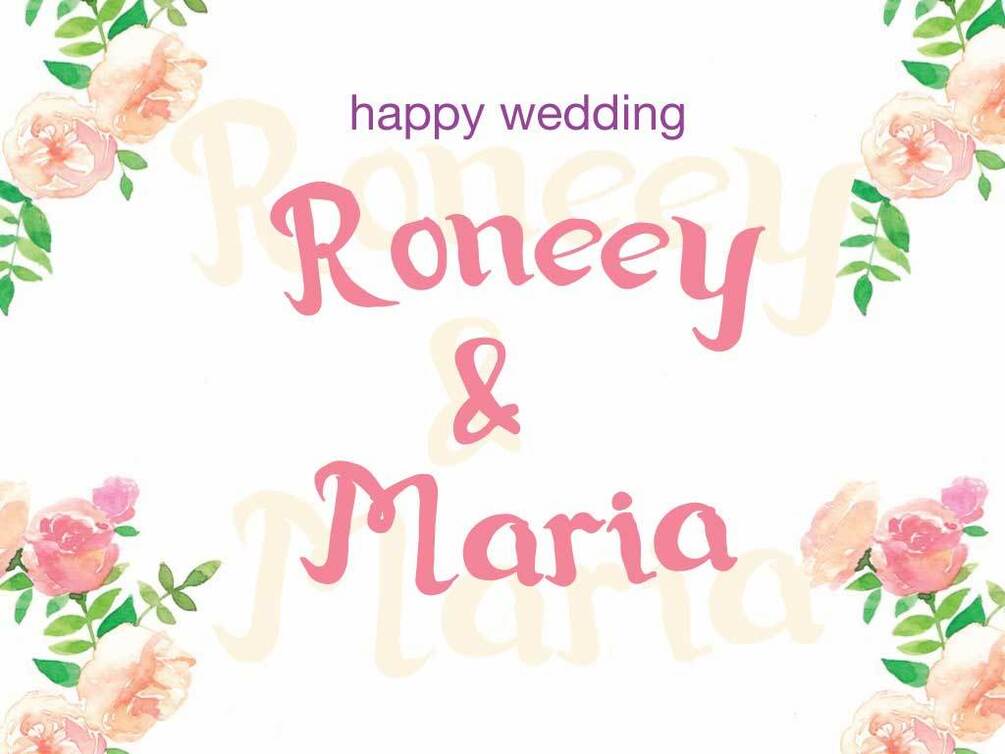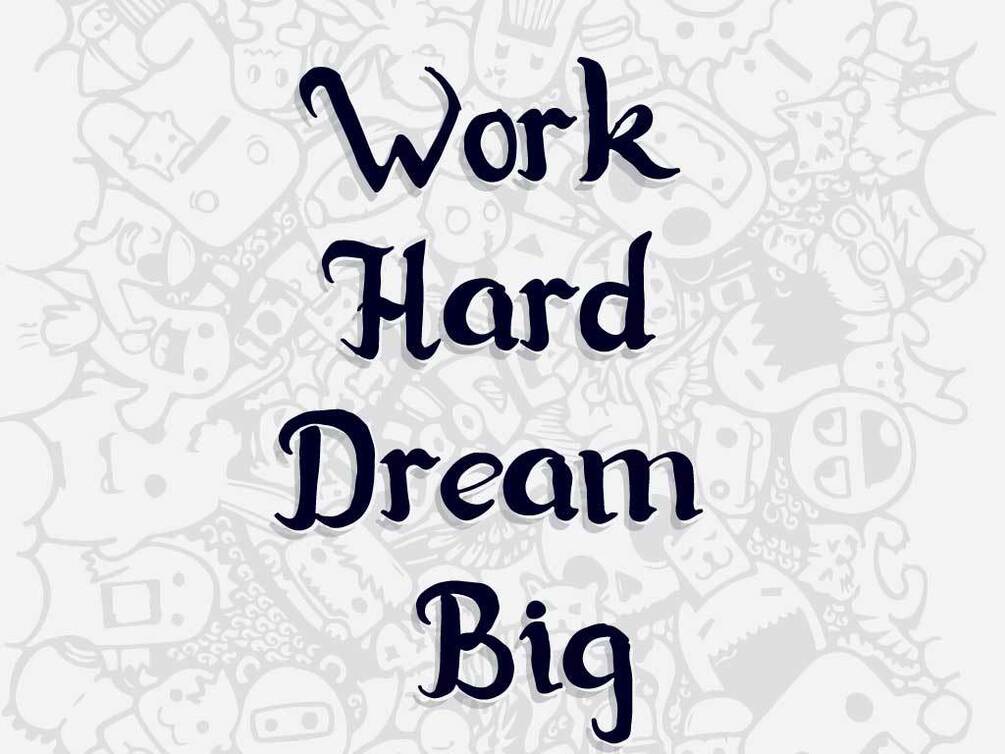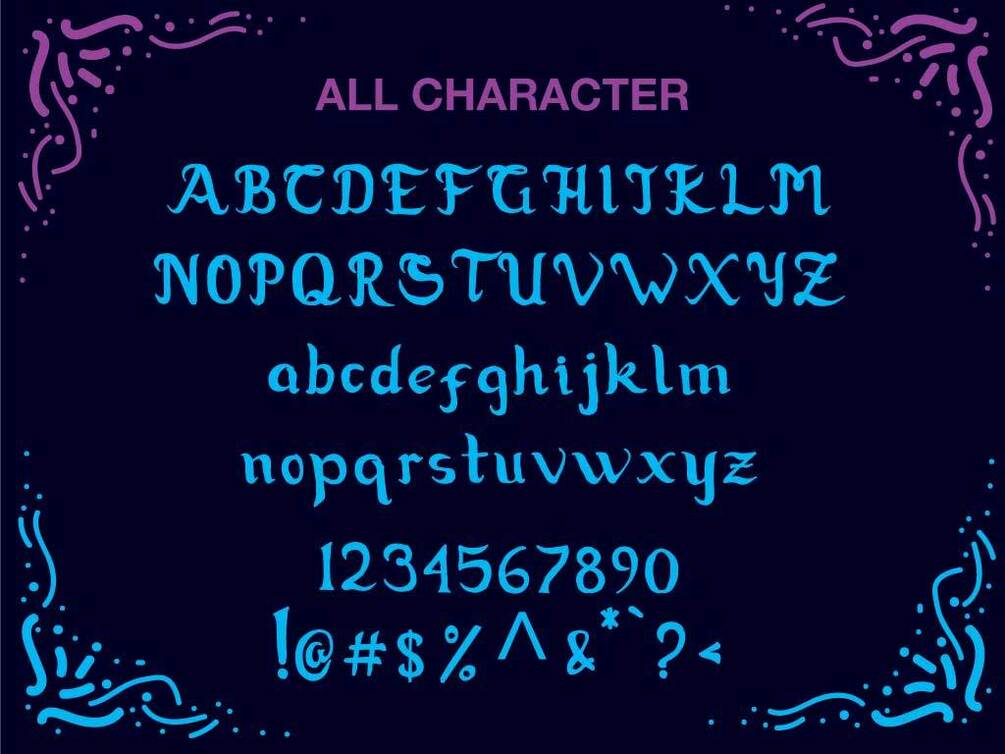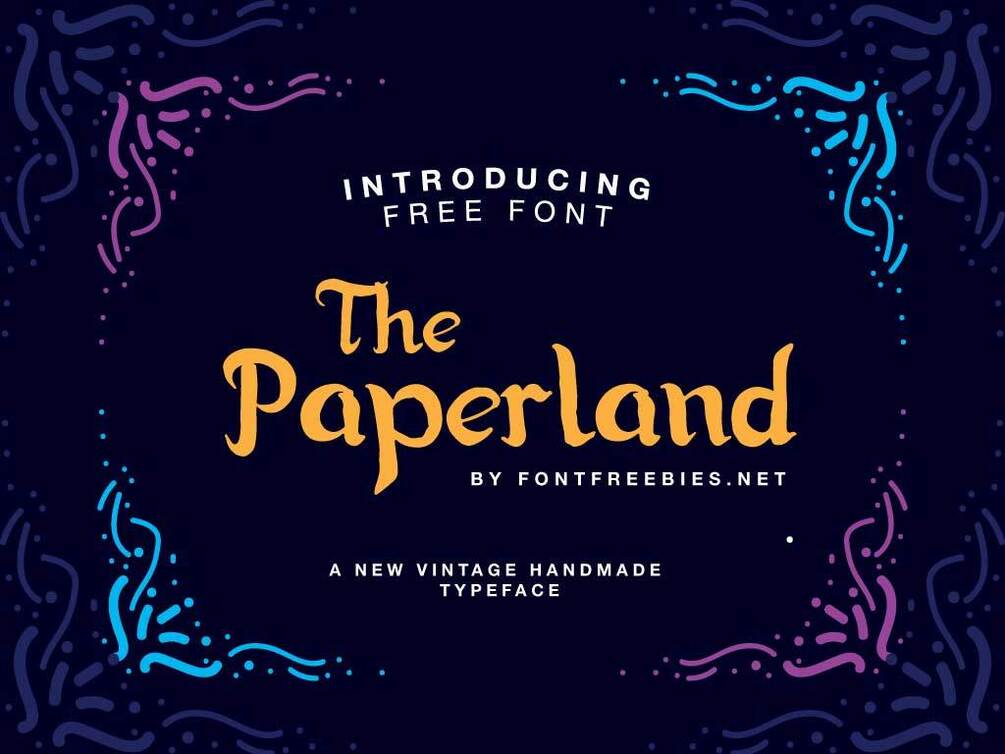
Free Font Paperland Typeface
Introducing Paperland Typeface by Fontfreebies.net. a typeface classic taste, very suitable as to make a design choice for books, magazines, packaging, branding, signage and more other creative projects.